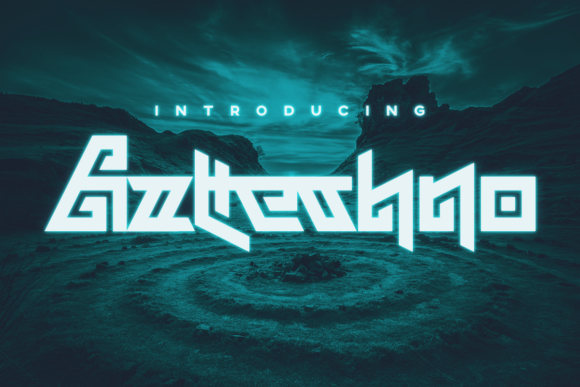
Discover the Unique World of Aztechno Font
Are you tired of using the same old fonts for your designs? Look no further! Aztechno Font is here to revolutionize the way you approach typography. This truly one-of-a-kind typeface is perfect for designers and crafters who want to add a touch of personality to their work. In this article, we’ll dive into the world of Aztechno Font and explore its endless possibilities.
What is Aztechno Font?
Aztechno Font is a unique and modern typeface that blends traditional and futuristic elements. Its distinctive design makes it stand out from other fonts, giving your designs a fresh and innovative look. Whether you’re working on a logo, brochure, or website, Aztechno Font is sure to make a statement.
Key Features of Aztechno Font
- Unique Design: Aztechno Font boasts a truly unique design that will set your work apart from the rest.
- Versatility: This font can be used for a wide range of designs, from logos and brochures to websites and social media graphics.
- Modern and Futuristic: Aztechno Font has a modern and futuristic feel, making it perfect for designs that require a cutting-edge look.
- Easily Readable: Despite its unique design, Aztechno Font is easily readable, making it perfect for body text and headings.
Why Use Aztechno Font?
So, why should you choose Aztechno Font for your designs? Here are just a few reasons:
- Add Personality to Your Designs: Aztechno Font allows you to add a touch of personality to your designs, making them more engaging and memorable.
- Stand Out from the Crowd: With Aztechno Font, you can create designs that stand out from the crowd and grab attention.
- Perfect for Creative Projects: Whether you’re working on a personal project or a client’s design brief, Aztechno Font is perfect for creative and innovative designs.
How to Use Aztechno Font
Using Aztechno Font is easy! Here are a few tips to get you started:
- Pair it with Other Fonts: Aztechno Font pairs well with other fonts, so don’t be afraid to experiment with different combinations.
- Use it for Headings and Titles: Aztechno Font is perfect for headings and titles, where its unique design can really shine.
- Experiment with Different Sizes and Colors: Don’t be afraid to experiment with different sizes and colors to really make your design pop.
Aztechno Font in Graphic Design
Aztechno Font is a versatile typeface that can be used in a variety of graphic design applications. Here are a few examples:
- Logo Design: Aztechno Font is perfect for logo design, where its unique design can help create a memorable brand identity.
- Brochure Design: Use Aztechno Font to create eye-catching brochures that grab attention.
- Website Design: Aztechno Font can be used to create modern and futuristic website designs that stand out from the crowd.
In conclusion, Aztechno Font is a truly unique typeface that can be used for any design you can imagine. Its distinctive design, versatility, and modern feel make it perfect for designers and crafters who want to add a touch of personality to their work. Whether you’re working on a logo, brochure, or website, Aztechno Font is sure to make a statement. So why not give it a try and see the difference it can make in your designs?
Get Creative with Aztechno Font